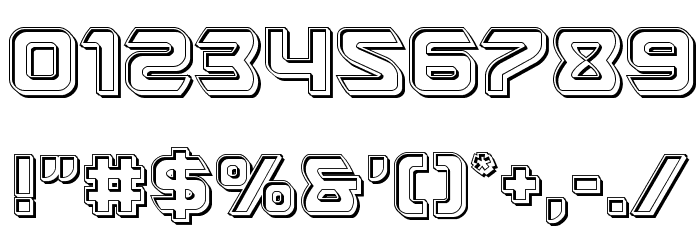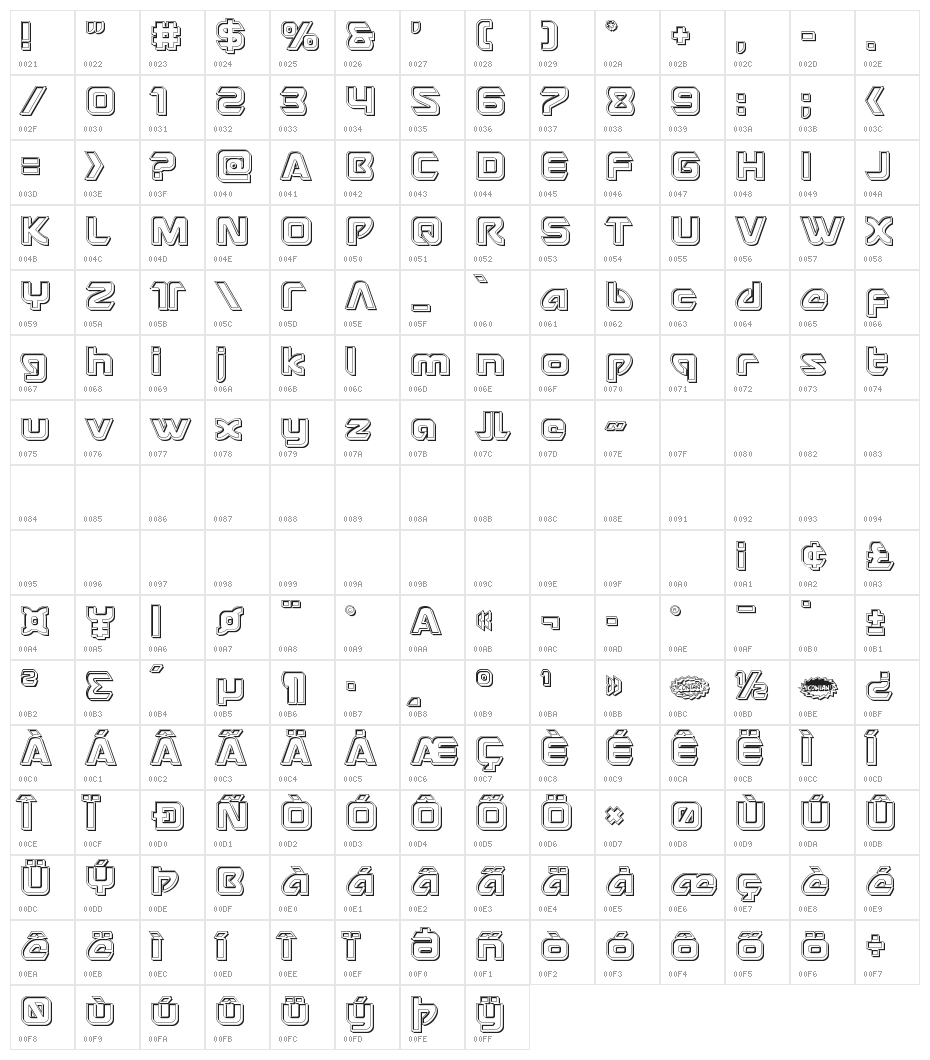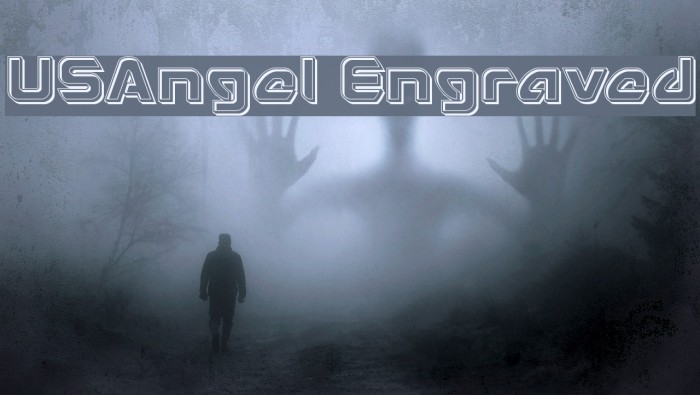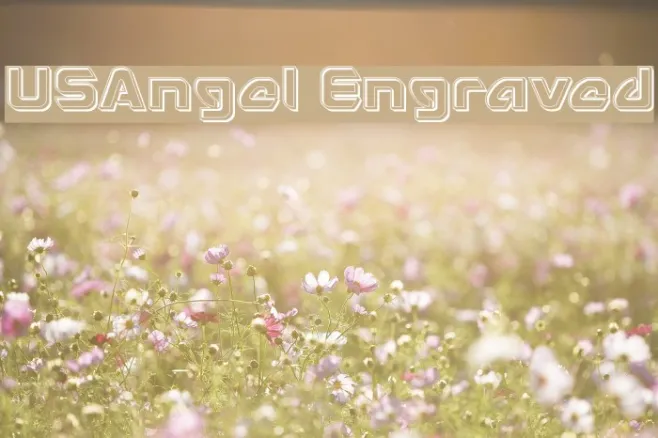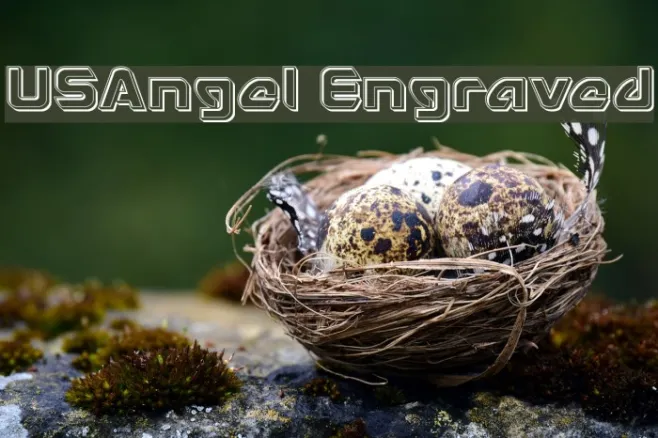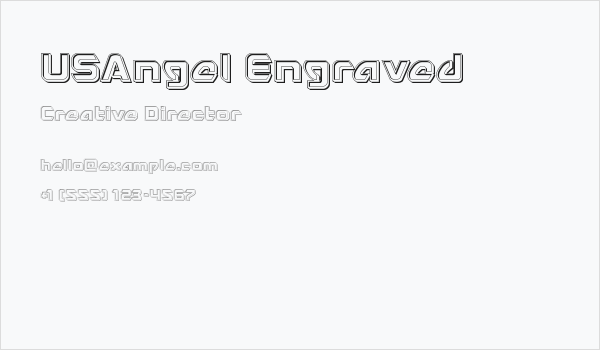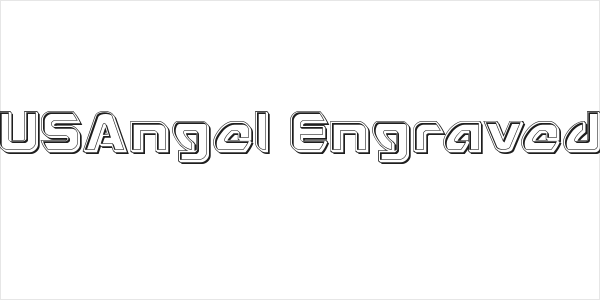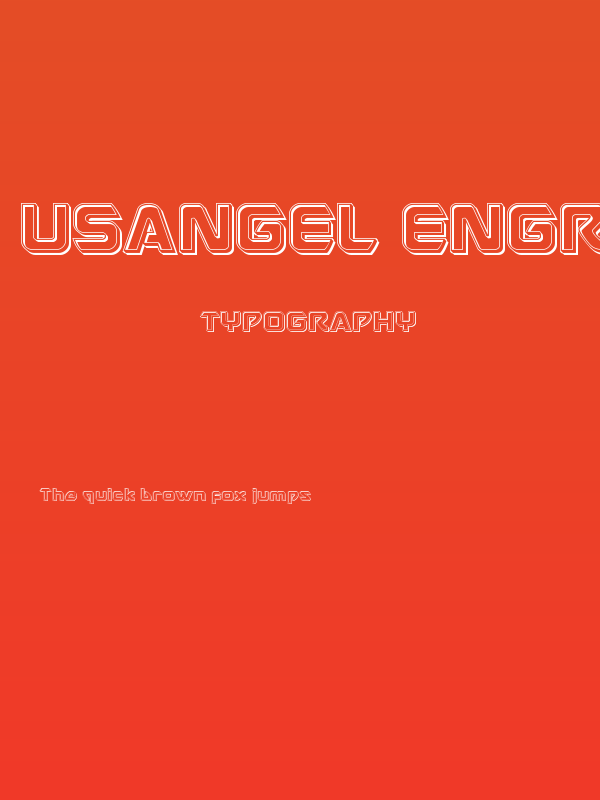
USAngel Engraved Font
USAngel Engraved Description
This font features a bold, geometric style with a three-dimensional engraved effect. The characters are outlined with a double line, creating a sense of depth and dimension. The uppercase and lowercase letters maintain a consistent width, while the numbers and special characters follow the same engraved design. The font's modern and futuristic appearance makes it stand out, with each character having a distinct, angular form that adds to its unique aesthetic. The spacing between characters is normal, allowing for readability while maintaining its decorative style.
| Proposed Projects | Ideal for futuristic designs, tech branding, video game titles, and posters requiring a modern, standout font. |